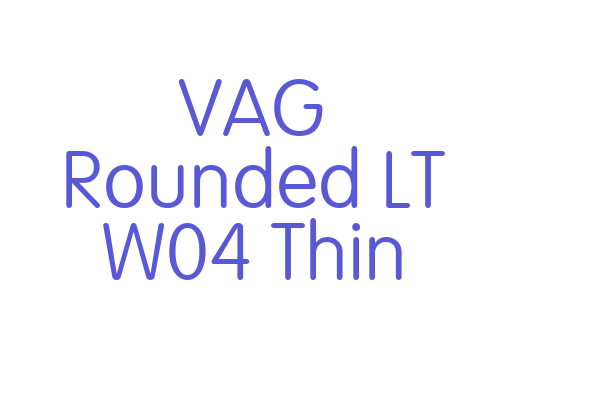
VAG Rounded LT W04 Thin is a sleek and modern sans serif font designed by Volkswagen. With its thin and rounded style, this font is perfect for creating a clean and contemporary look in various design projects. Ideal for use in branding, advertising, and editorial design, this font exudes a sense of sophistication and simplicity.
Font Name: VAG Rounded LT W04 Thin
Designer: Volkswagen
Font Family: VAGRoundedLTW04-Thin
Weight: Thin